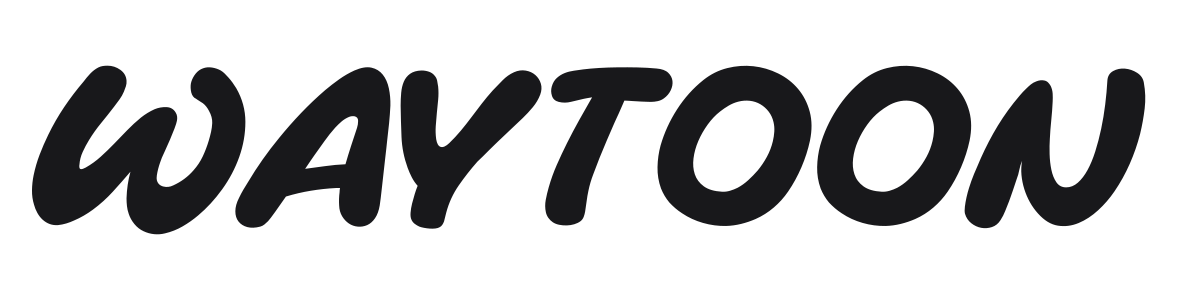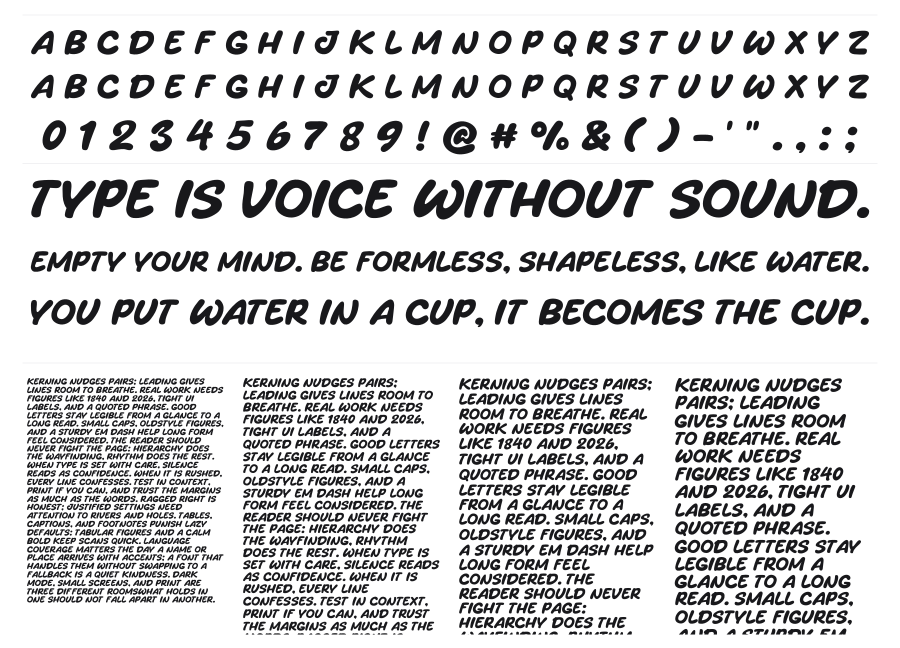
Waytoon
Waytoon is a heavy bold italic display font built around the visual language of comic books and cartoons. Thick rounded strokes, chunky proportions, and a confident forward lean give it raw kinetic energy. It reads instantly at large sizes and carries the kind of personality that works for game titles, packaging, and youth-oriented branding.